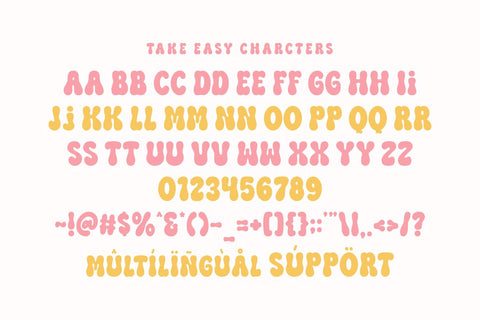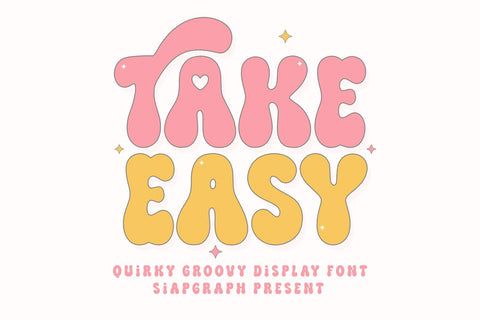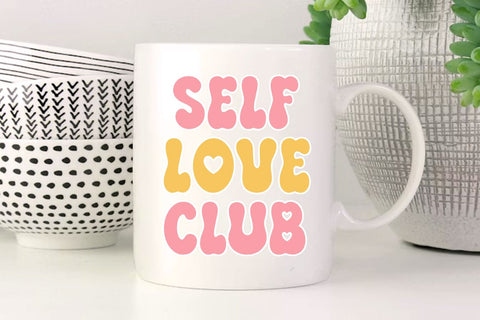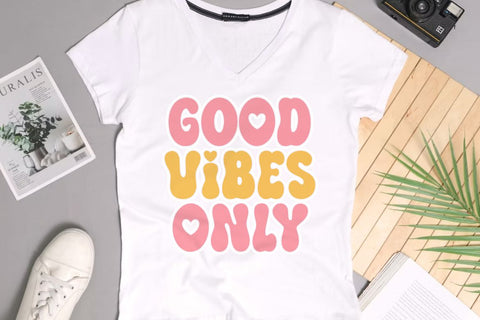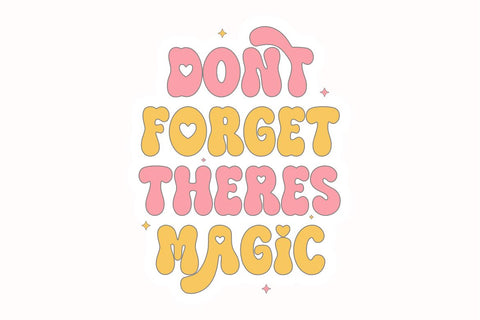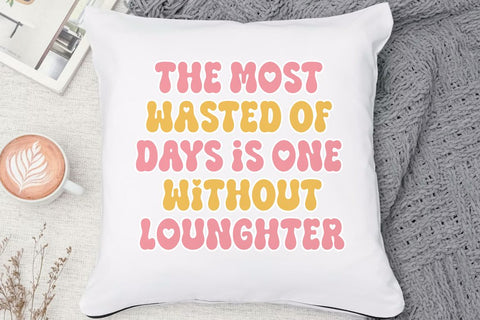
Take Easy - Quirky Groovy Font
Take Easy is a quirky groovy display font that captures the laid-back, joyful vibes of retro design with a modern, affectionate twist. Featuring bold, wavy letterforms and a charming heart accent integrated into the character design, this typeface brings an optimistic and playful personality to any creative project. Its clean and substantial construction is specifically optimized for the crafting community, ensuring a seamless and frustration-free experience for vinyl cutting, sublimation, and high-quality digital printing.
Perfect for: creating high-impact SVG cut files, retro-themed t-shirts, vibrant stickers, personalized party invitations, event branding, nursery wall art, and trendy social media graphics. Whether you are a professional Print on Demand (POD) seller or working on a unique DIY gift, this font provides the bold readability and whimsical charm to make your designs pop.
Great for holiday themes such as Birthdays, Summer Break, Valentine's Day, and "Good Vibes" themed events, adding a relaxed, happy, and groovy spirit to all your seasonal designs!